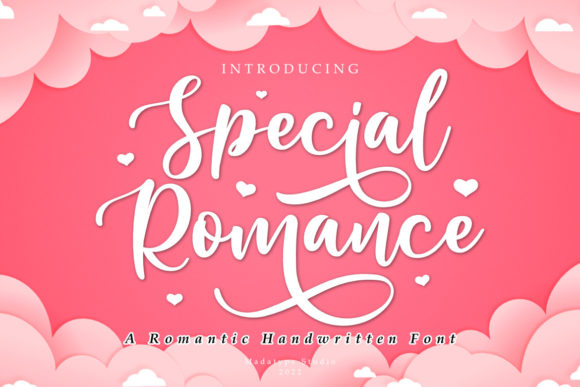
Unlock the Enchantment of Special Romance Font: A Typographic Masterpiece for Cricut Design
Journey into the realm of exquisite typography with Special Romance Font, a script font family that radiates charm and elegance. This captivating font, meticulously crafted by Madatype Studio, is a true gem for those seeking to weave magic into their creative endeavors.
With its graceful curves and enchanting swashes, Special Romance Font gracefully dances across your screen, leaving a trail of beauty and inspiration in its wake. Its PUA encoding opens up a world of possibilities, granting you effortless access to a treasure trove of glyphs and swashes, empowering you to unleash your creativity without limits.
Immerse yourself in the allure of Special Romance Font and discover a world of endless artistic possibilities. Whether you're designing eye-catching logos, crafting unforgettable branding, or simply seeking to add a touch of elegance to your quotes, this font is your perfect companion.
With Special Romance Font at your fingertips, transform your Cricut creations into captivating masterpieces. Its innate ability to capture the essence of romance and timeless beauty makes it an ideal choice for crafting wedding invitations, love letters, and any project where a touch of enchantment is desired.
Elevate your designs to new heights with Special Romance Font, the ultimate font for Cricut enthusiasts. Allow its enchanting charm to captivate your audience, leaving them spellbound by the beauty of your creations. Embrace the magic of Special Romance Font and watch your artistic vision come to life with breathtaking elegance.